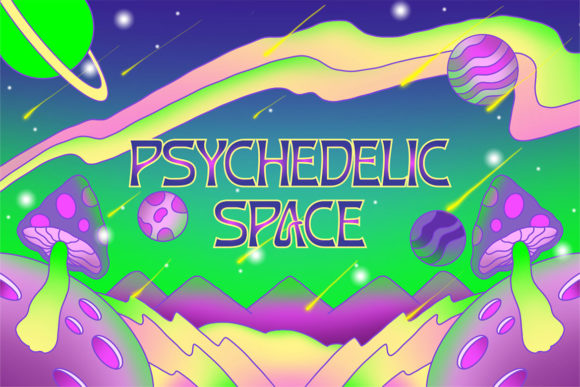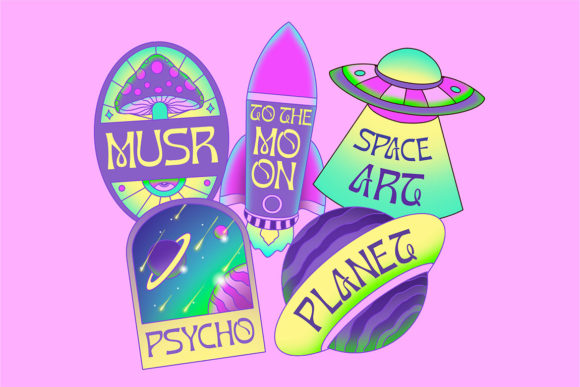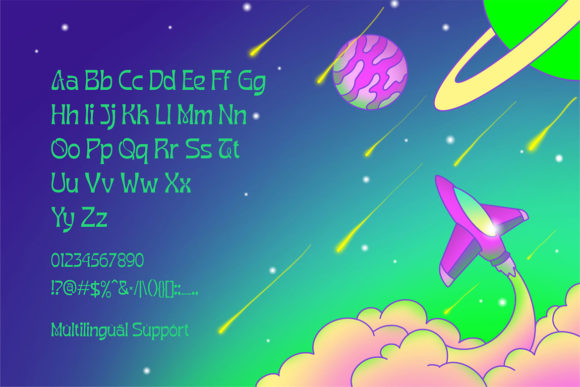
Introduction to Psychoart Font
Psychoart is a contemporary display font, inspired by the 1970’s era.
Psychoart offers beautiful typographic harmony for a diversity of design projects, including logos & branding, social media posts, advertisements & product designs .
Key Features of Psychoart Font
Why Choose Psychoart Font?
Psychoart Font offers exceptional quality and versatility, making it a valuable addition to your design toolkit. Whether you’re creating for personal projects or commercial use, Psychoart Font delivers professional results.